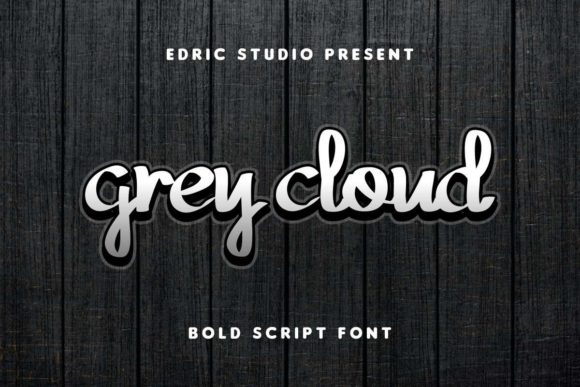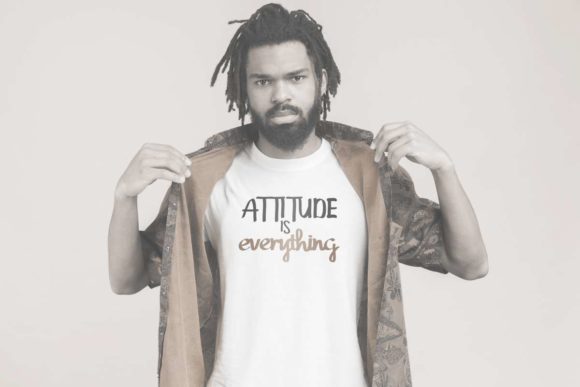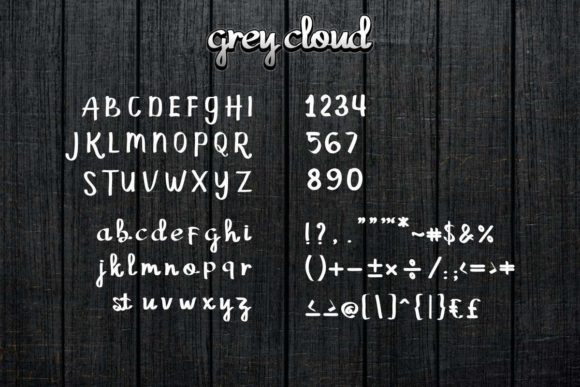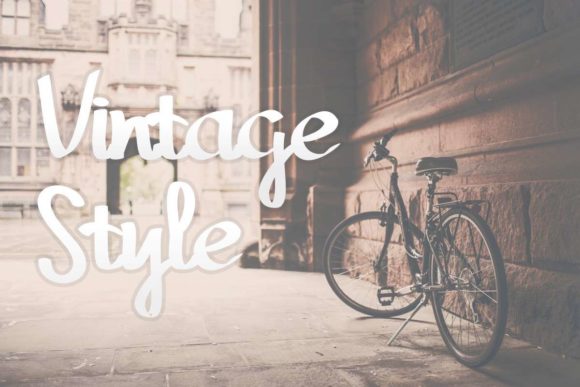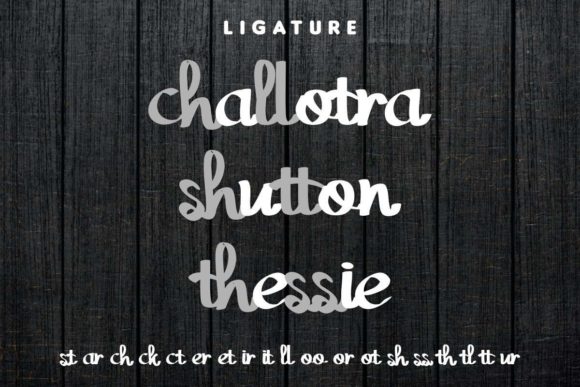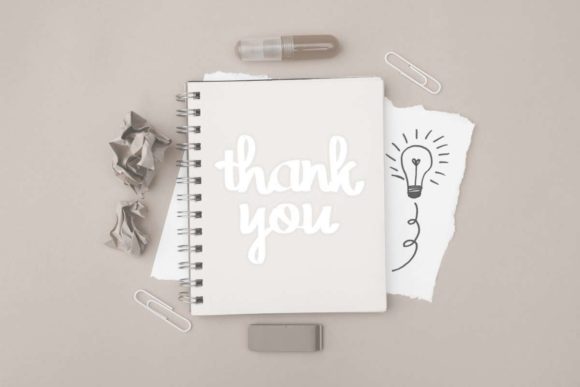
Introducing Grey Cloud Font: The Perfect Handwritten Companion for Designers and Crafters
Are you on the hunt for a font that adds a touch of personality and whimsy to your designs? Look no further than Grey Cloud Font, a delightful, friendly, and thick lettered handwritten font that’s sure to capture your heart. Created with the help of a brush pen, Grey Cloud boasts a natural and unique style that makes it incredibly versatile and fitting for a wide range of design projects.
The Story Behind Grey Cloud Font
Grey Cloud Font is the brainchild of a creative designer who sought to craft a font that would bring a sense of warmth and approachability to any design. Using a brush pen, the designer carefully crafted each letter, imbuing the font with a sense of personality and human touch. The result is a font that feels both modern and timeless, making it perfect for designers and crafters looking to add a personal touch to their work.
What Makes Grey Cloud Font So Special?
So, what sets Grey Cloud Font apart from other fonts out there? Here are just a few of its standout features:
- Cute and Friendly: Grey Cloud Font is designed to be approachable and friendly, making it perfect for designs that require a personal touch.
- Thick Lettered: The font’s thick, bold letters make it easy to read and add a sense of emphasis to your designs.
- Handwritten with a Brush Pen: The font’s handmade nature gives it a unique, organic feel that’s hard to replicate with digital fonts.
- Natural and Unique Style: Grey Cloud Font’s natural style makes it incredibly versatile, allowing you to use it in a wide range of design projects.
Grey Cloud Font is a dream come true for designers and crafters looking to add a personal touch to their work. Whether you’re creating:
- Handmade Cards: Add a touch of personality to your greeting cards and make them stand out.
- Custom Invitations: Create beautiful, one-of-a-kind invitations for special occasions.
- Branding Materials: Use Grey Cloud Font to add a touch of whimsy to your brand’s marketing materials.
- Digital Art: Incorporate Grey Cloud Font into your digital art projects for a unique and eye-catching effect.
Tips for Using Grey Cloud Font
To get the most out of Grey Cloud Font, here are a few tips to keep in mind:
- Experiment with Colors: Grey Cloud Font looks great in a variety of colors, so don’t be afraid to experiment and find the perfect hue for your design.
- Mix and Match: Combine Grey Cloud Font with other fonts and design elements to create a unique and eye-catching design.
- Play with Size: Grey Cloud Font looks great in a variety of sizes, from large and bold to small and delicate.
In conclusion, Grey Cloud Font is a versatile and charming handwritten font that’s perfect for designers and crafters looking to add a personal touch to their work. With its natural and unique style, thick lettered design, and friendly demeanor, Grey Cloud Font is sure to become a go-to font in your design arsenal. So why wait? Download Grey Cloud Font today and let your creativity soar!